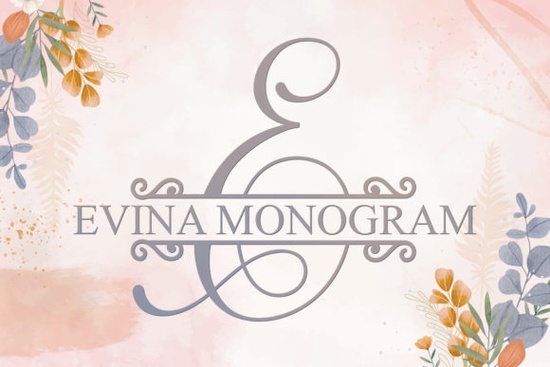
If you're looking for a delicate typeface that adds a romantic touch to your projects, the Evina Monogram font might be exactly what you need. It's a dainty, unique decorative font that works beautifully for love letters, wedding invitations, and other elegant designs. Whether you're a crafter, print-on-demand seller, or small business owner, this font can help you create a soft, lovely aesthetic without overwhelming your layout.
What makes Evina Monogram different from other decorative fonts?
Unlike many script or serif fonts, Evina Monogram has a hand-drawn, almost vintage feel. Its delicate strokes and light weight make it stand out for projects that need a subtle, personal touch. It's not too bold or flashy – instead, it brings a sense of intimacy and care. If you compare it to heavier decorative fonts, Evina Monogram feels more like a whisper than a shout. That's why it's a popular choice for branding in the wedding industry, where softness and romance are key.
How can I use Evina Monogram in my designs?
The best way to use this font is in short, meaningful text. Because it's a monogram font, it shines in initials, names, or short phrases. Here are a few practical ideas:
- Wedding invitations – Use Evina Monogram for the couple's names or a short “Mr. & Mrs.” line.
- Love letters – Add a single word or initial as a decorative element on the envelope or letterhead.
- Product labels – If you sell candles, soaps, or stationery, try using it for product names or scent descriptions.
- Digital cards – Create e-invitations or greeting cards with a handmade look.
- Logos – Especially for businesses with a romantic or vintage brand identity.
The font is also versatile enough to pair with clean sans-serif fonts for contrast. For example, use Evina Monogram for the headline and a simple font like Helvetica for body text.
Tips for using decorative fonts in print-on-demand products
Decorative fonts like Evina Monogram can boost your product appeal, but they need to be used carefully. Here are a few tips from experienced sellers:
- Keep it readable – Don't use the decorative font for huge blocks of text. Reserve it for headers, names, or short lines.
- Test the size – What looks good on screen might be too thin when printed at a small size. Always print a sample first.
- Pair with a neutral background – Because Evina Monogram is light, it works best on a clean white or pastel background. Avoid placing it over busy patterns.
- Layer with other elements – Add a subtle underline, a floral graphic, or a simple frame to complete the design.
- Match the mood – This font is romantic, so don't use it for edgy or modern products. Stick with wedding, love, or vintage themes.
If you want a different decorative style, the Wichy Lover decorative font offers more cursive flow and might pair nicely with Evina Monogram in a design set.
How do I pair Evina Monogram with other fonts?
When combining decorative fonts, aim for contrast. Since Evina Monogram is thin and elegant, pair it with a thicker, blocky font for a modern look. Or use a simple sans-serif font for body text to keep the design balanced. Avoid using two highly decorative fonts together – they will compete for attention.
For example, try using Evina Monogram for the main word and a font like Montserrat or Lato for the secondary text. You can also use it inside a shape, like a circle or a heart, to make it feel more like a monogram.
Practical checklist before you start a project with Evina Monogram
Once you have a design you're happy with, you can upload it directly to your print-on-demand shop or use it in your next craft project. The key is to let the font breathe – give it space around it, and it will do the rest.